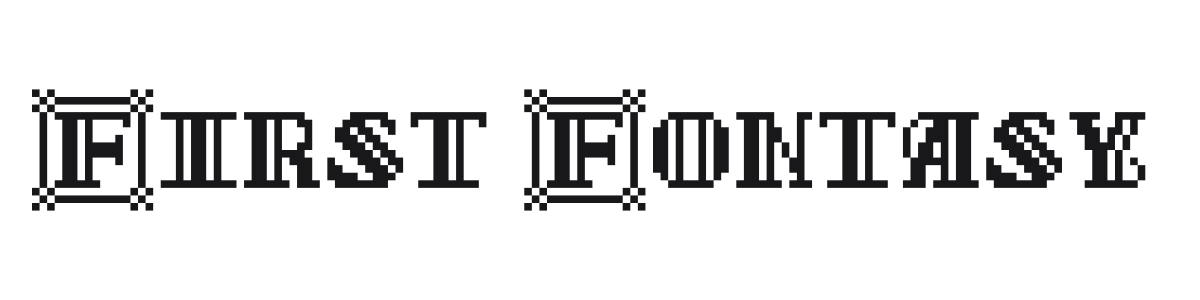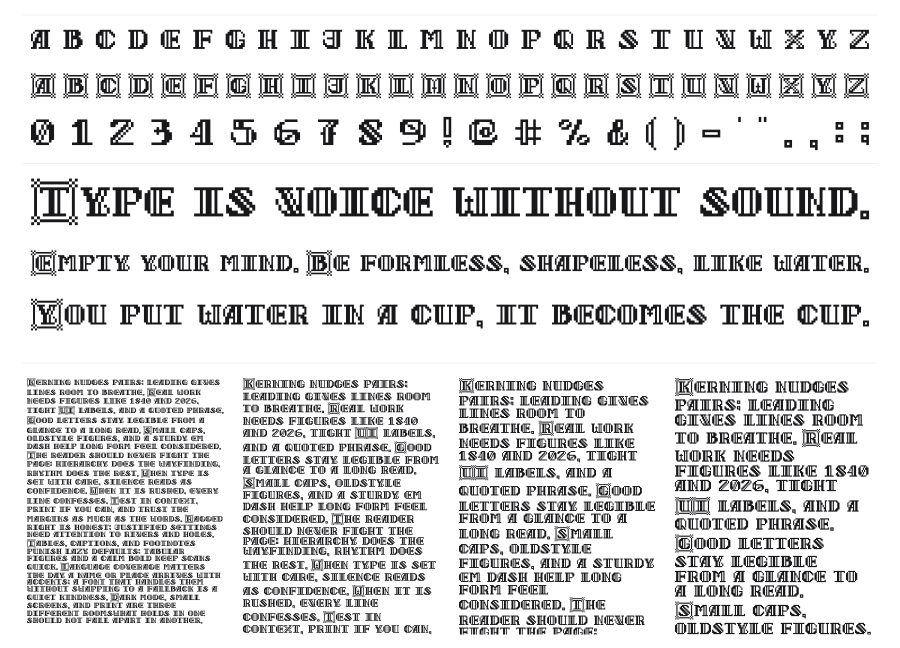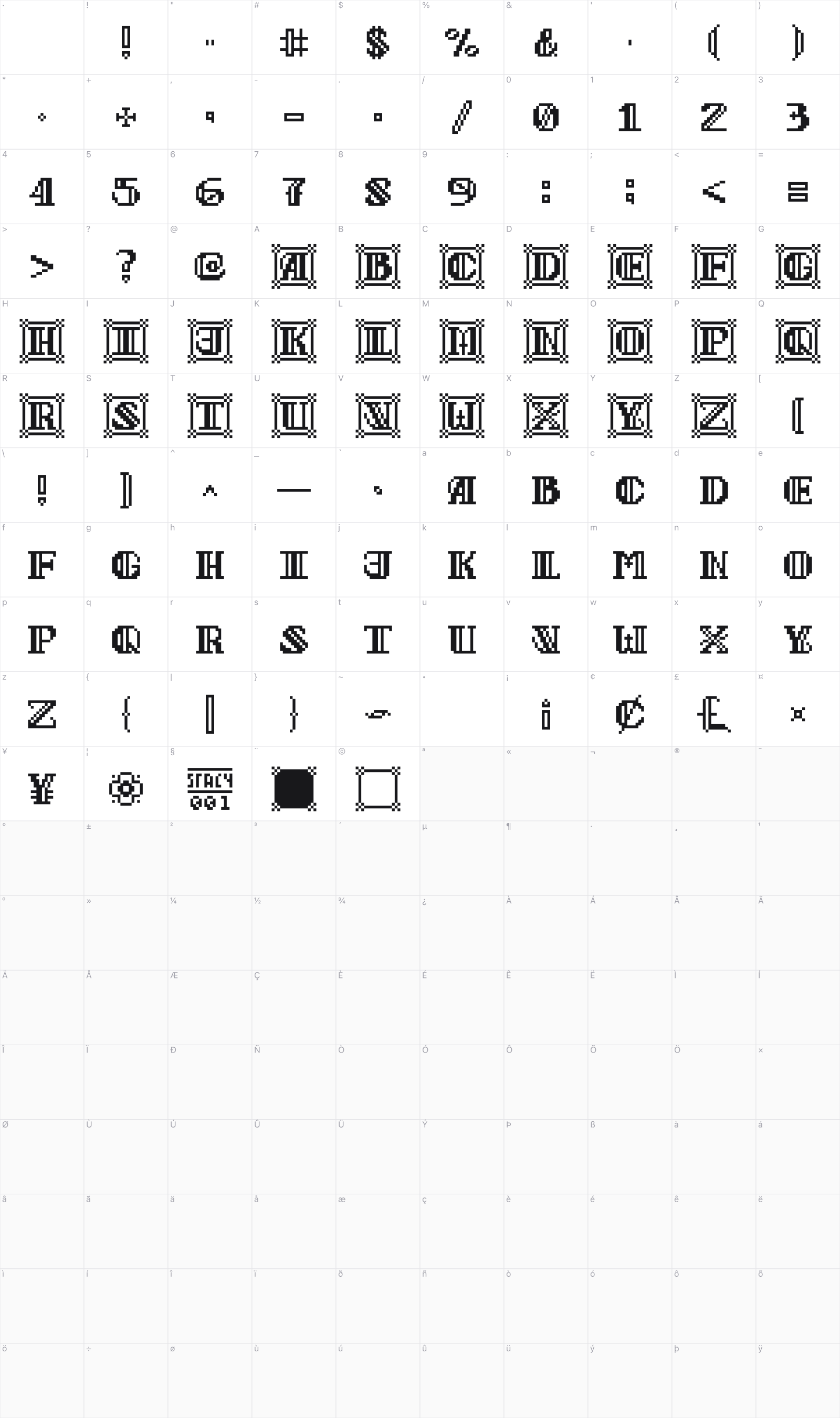
First Fontasy
by Stacy Kendra
First Fontasy is a bold pixelated serif built on a bitmap grid, created in BitFontMaker 2. The design borrows the heavy stems and decorative serifs of Victorian display types and translates them into chunky square pixels. It has the raw charm of early video game title screens and handmade indie lettering.